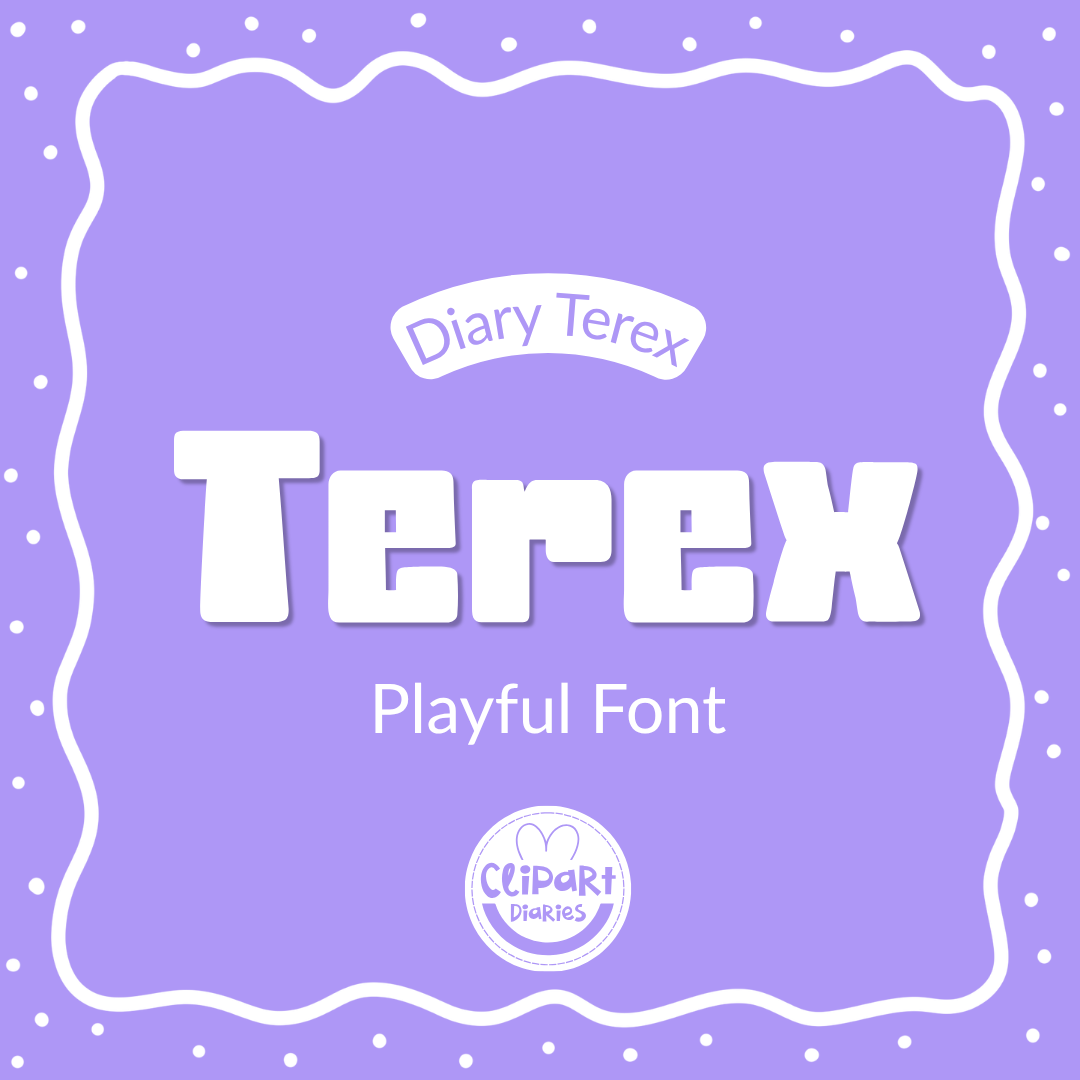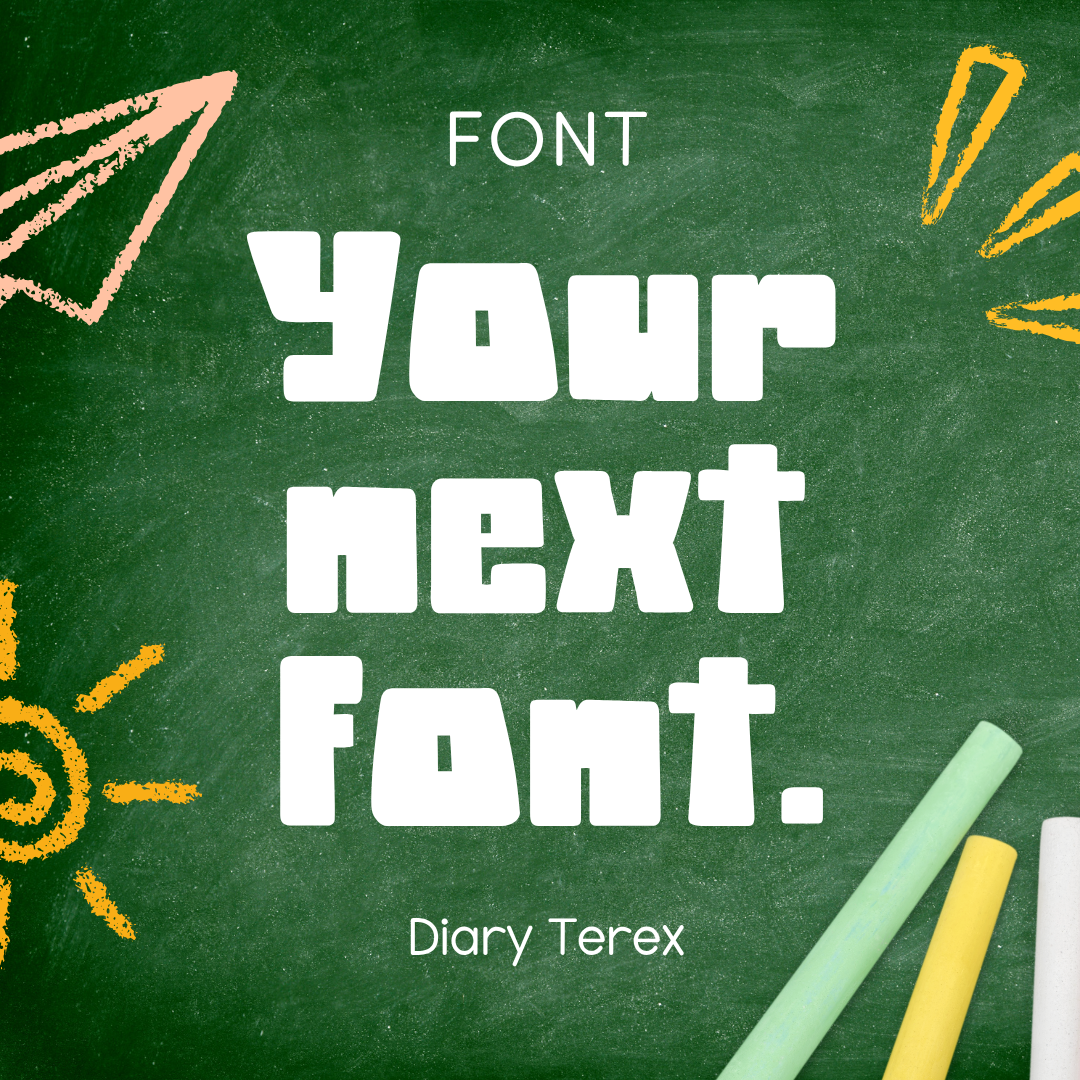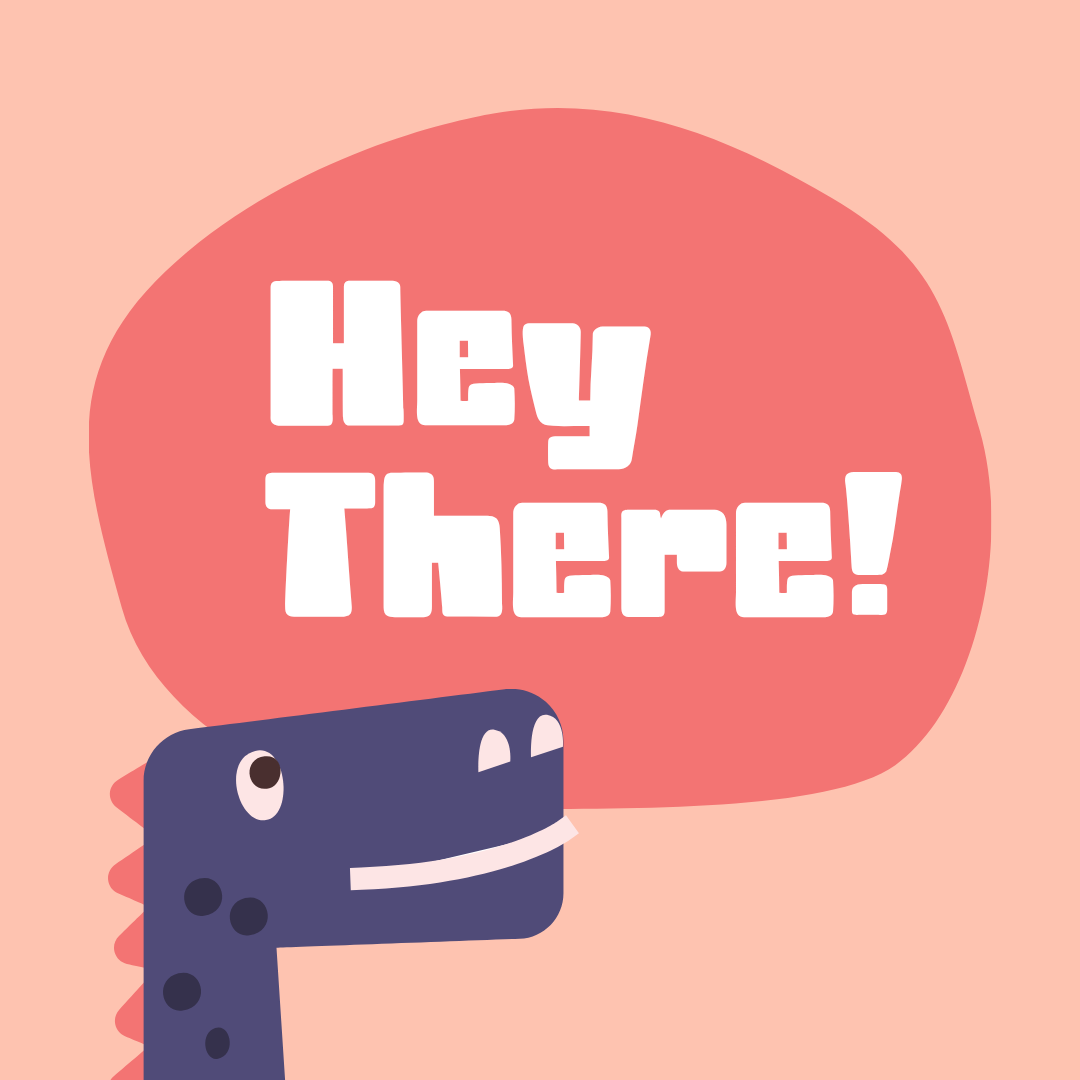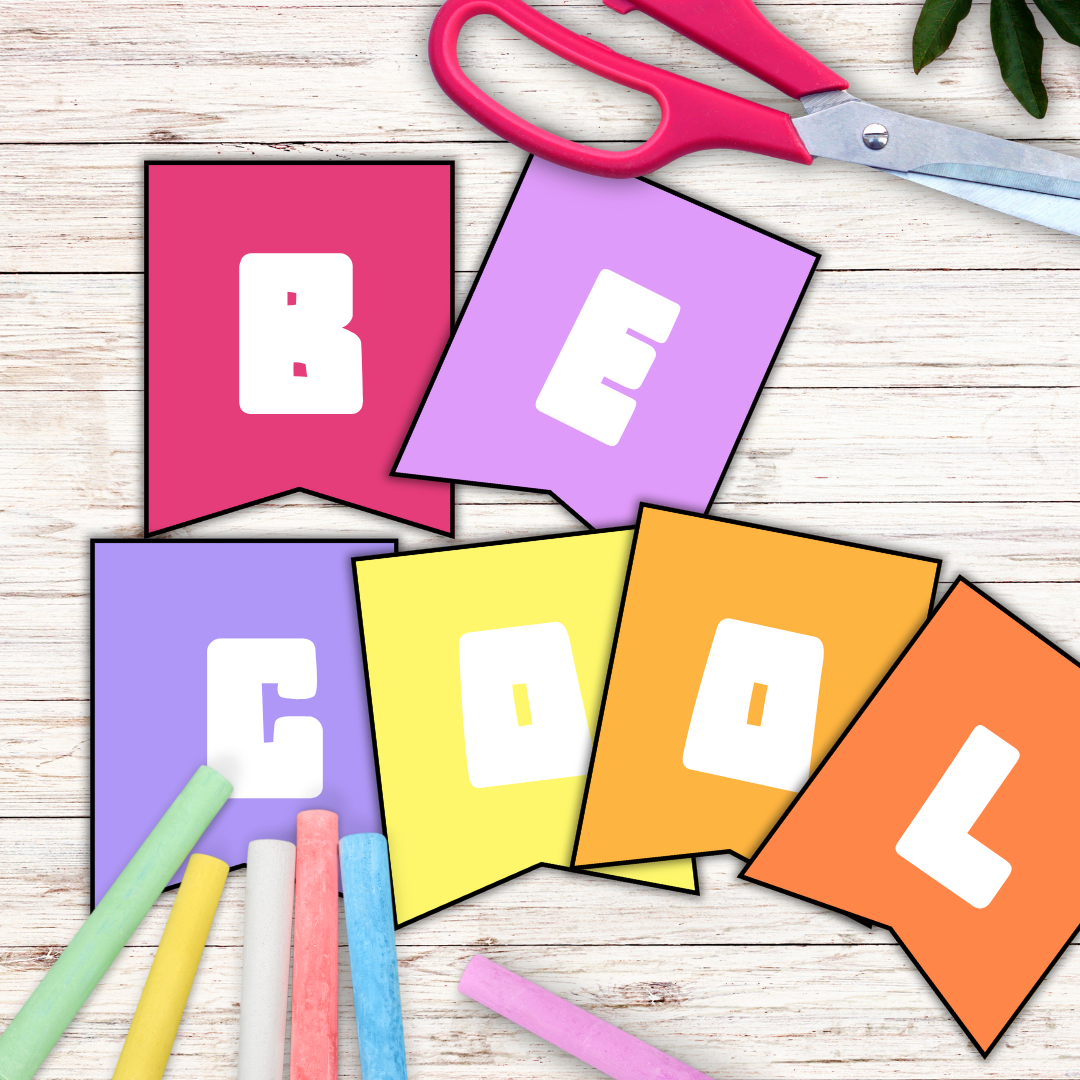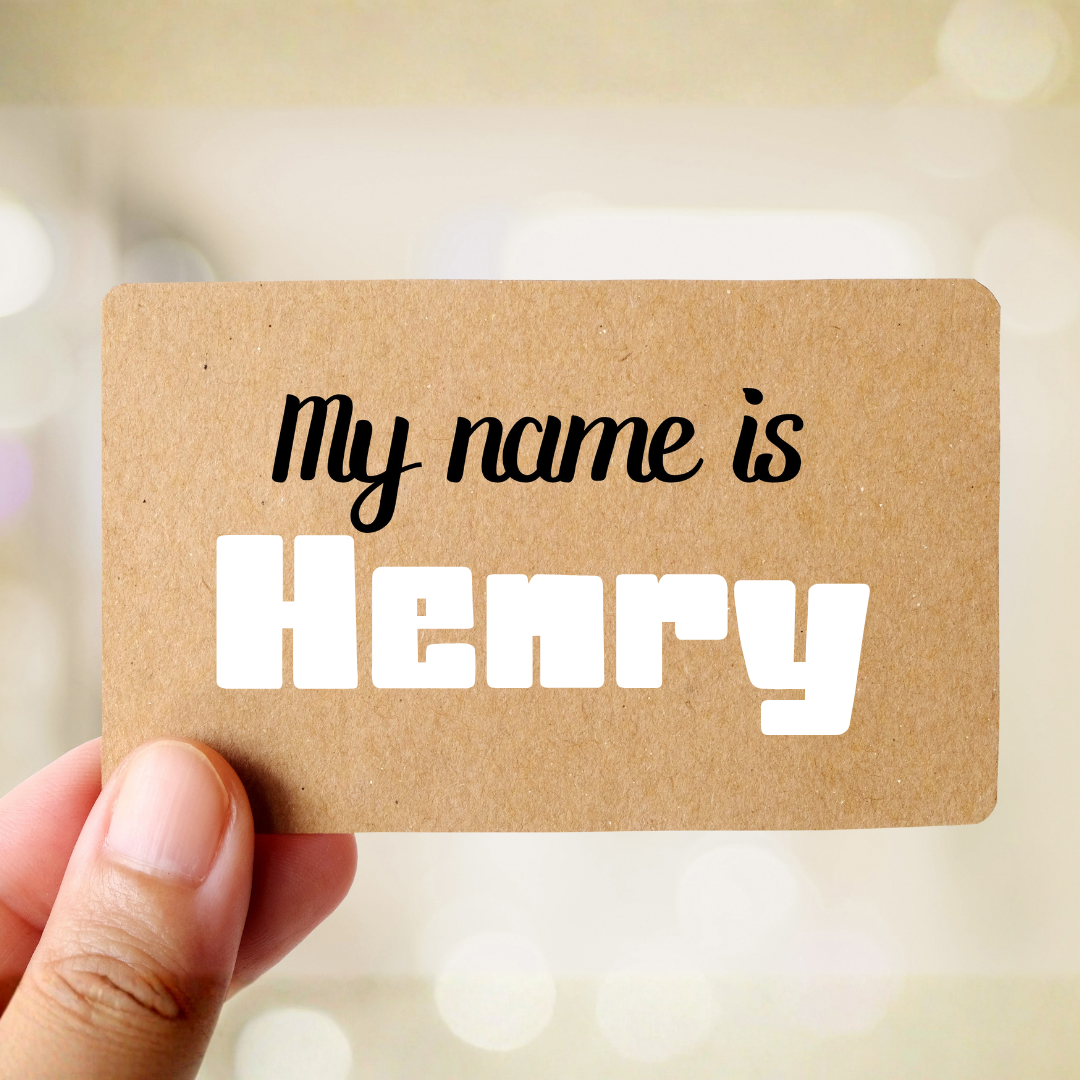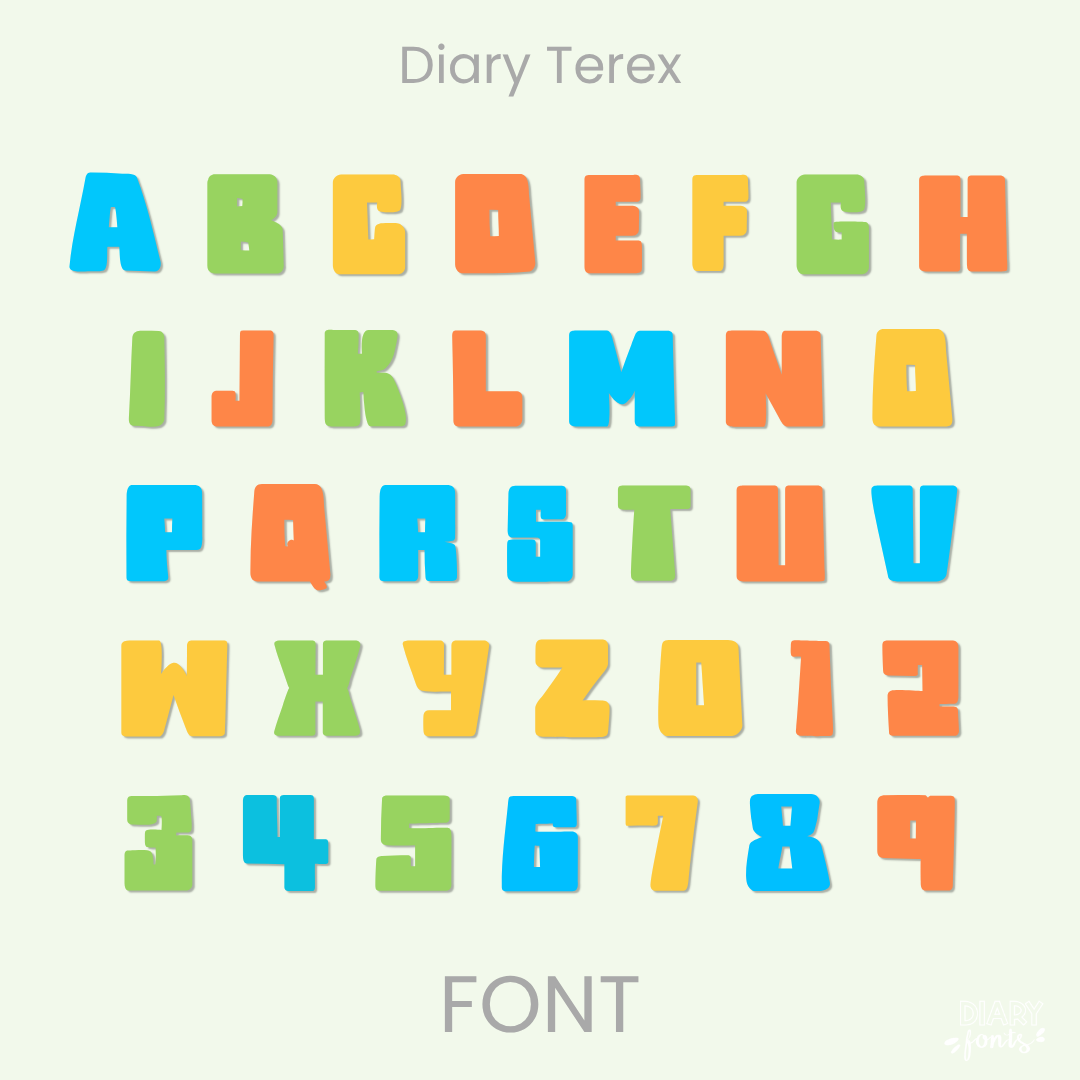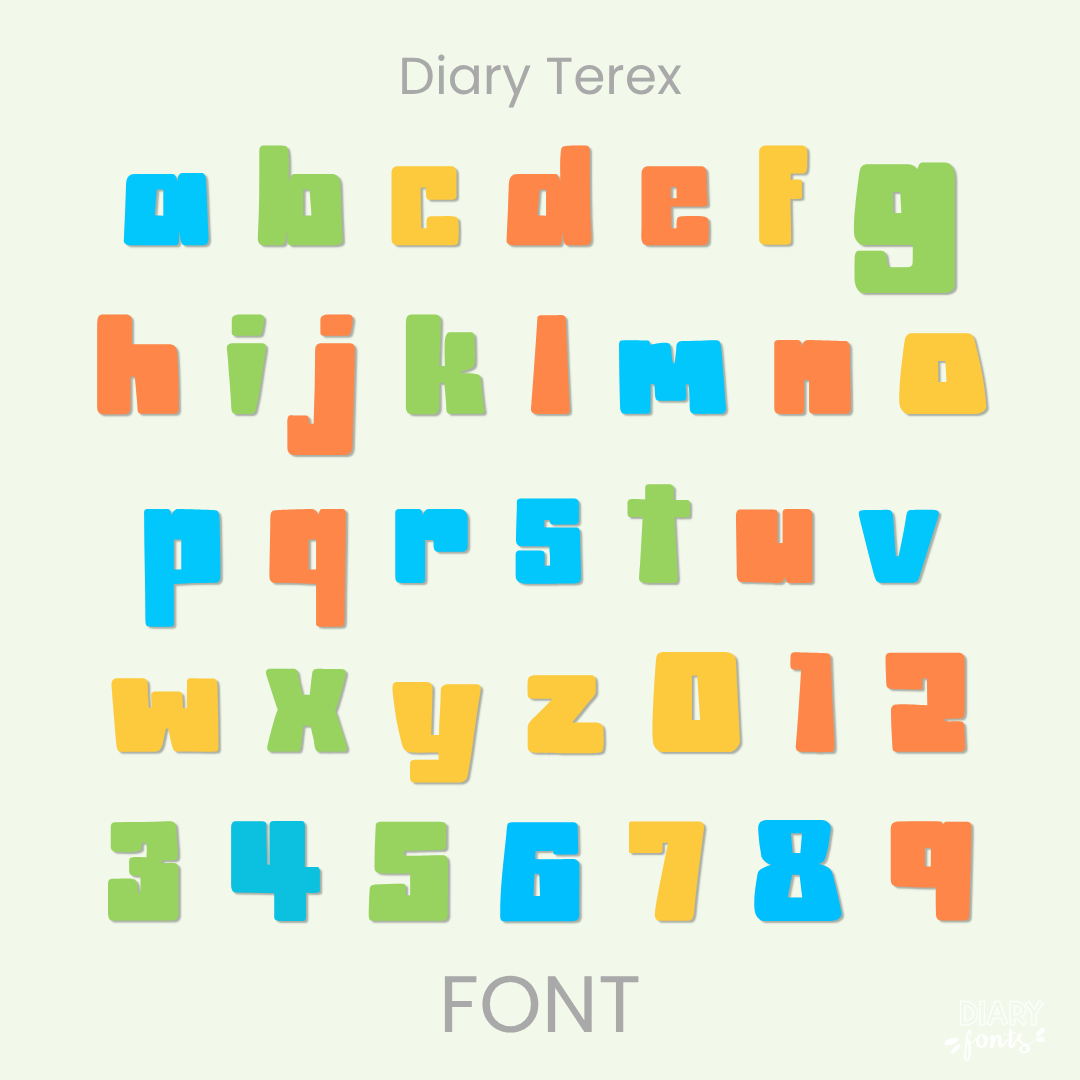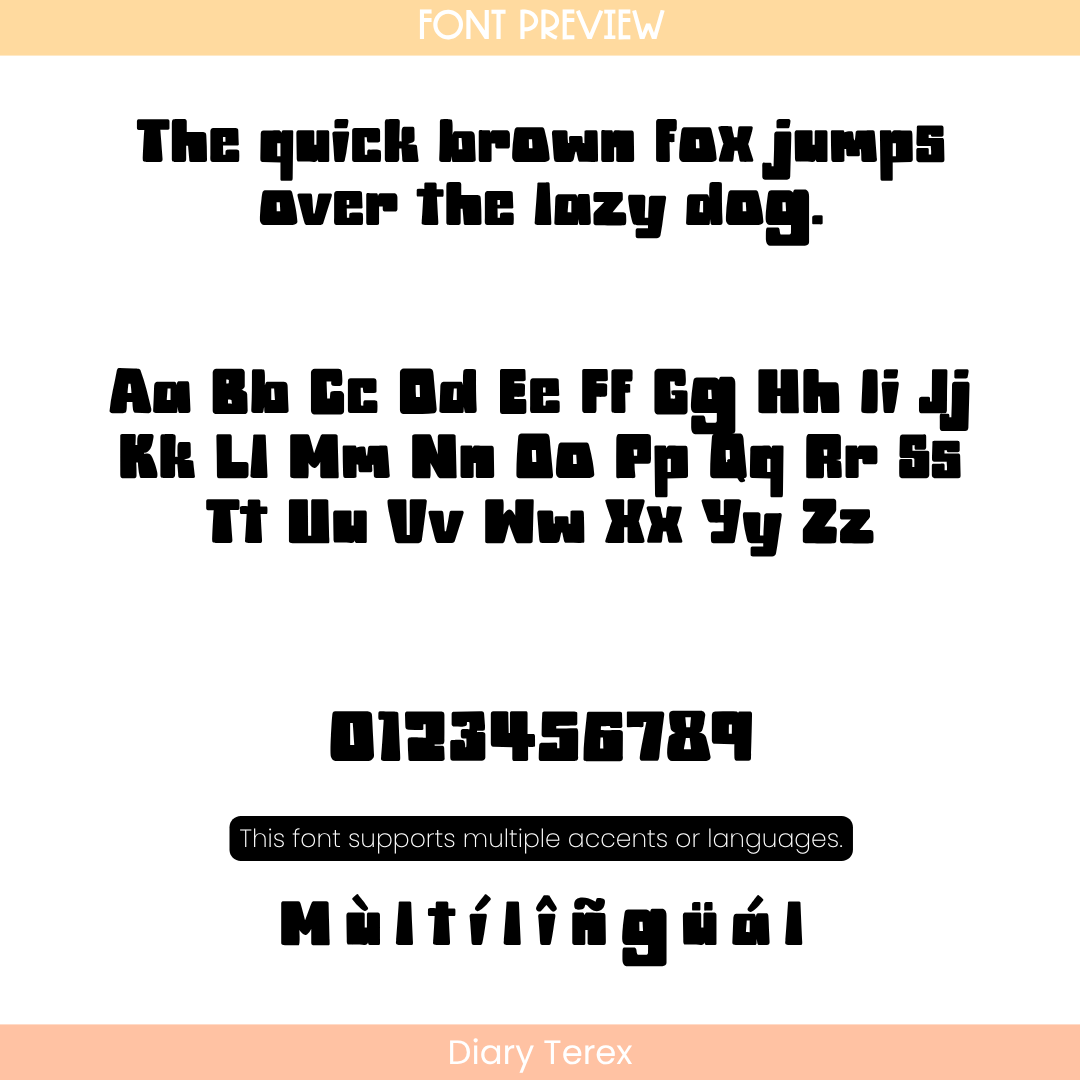
If you’ve been looking for a thick, chunkier font to add some serious graphic weight to your project layouts, Diary Terex is about to become your new favorite design asset. This playful display font features boxy, heavy-duty letterforms that look as if they were precisely snipped from construction paper. Sitting wide and incredibly grounded along the baseline, its thick-set geometric counters cut right through busy backgrounds, making it an exceptionally clear and highly legible headline choice for your sweet students to read from anywhere in the classroom.
It is an absolute dream selection for designing prominent school hallway signs, construction-themed bulletin board headers, bold morning presentation slides, and high-contrast printable game cards. Inside the download, you’ll get a full set of heavy, solid uppercase and lowercase print letters, matching bold sports-style digits, and multi-accent marks for complete multilingual support. It drops directly into Canva, MS Office, or Adobe on your desktop, and works seamlessly with Procreate and GoodNotes on your iPad. Whether you’re organizing classroom centers for your own sweet students or creating dynamic commercial-use task cards for your teacher shop, this powerful block font brings a confident, energetic style to your creative toolkit.